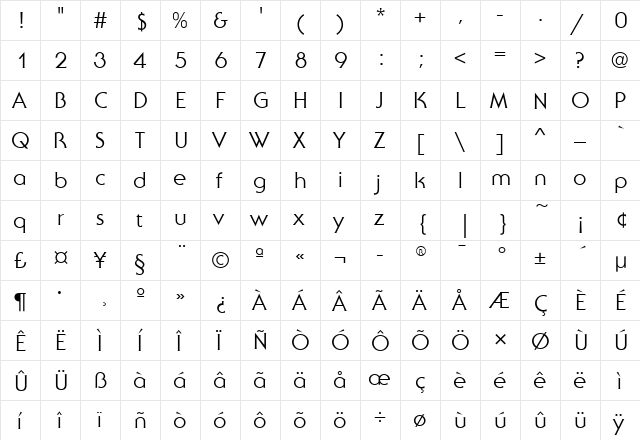
SerifGothicRegITC Medium Font Preview
SerifGothicRegITC Medium
SerifGothicRegITC Medium Font Details
Design Context for SerifGothicRegITC Typeface
SerifGothicRegITC carries the refined structure of traditional serif typography, with bracketed terminals and considered proportions that communicate credibility and craft.